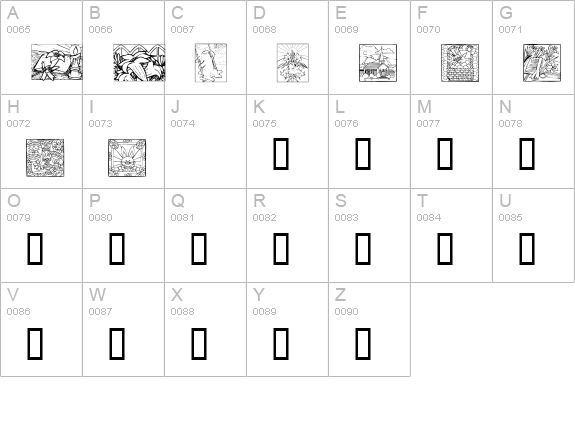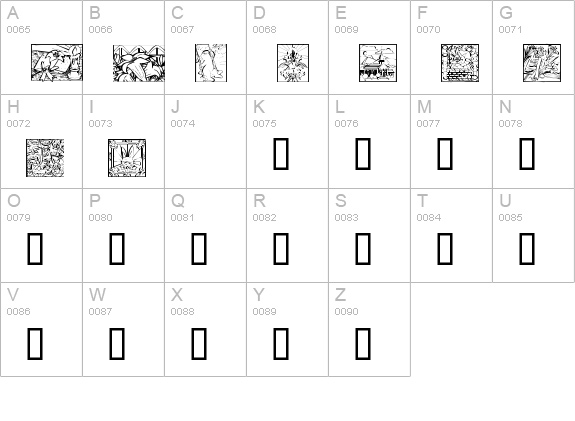
KR Easter Squares Font Details
KR Easter Squares font is a whimsical and playful typeface perfect for adding a touch of fun to your designs. With its charming square shapes and unique character designs, this font is sure to stand out and make a statement. Whether you're creating invitations, greeting cards, or posters, KR Easter Squares font will add a festive and lighthearted touch to your projects. And the best part? KR Easter Squares font is available for free download at FontsMarket.com. So go ahead and add this delightful font to your collection today and let your creativity shine with its cheerful and quirky style.